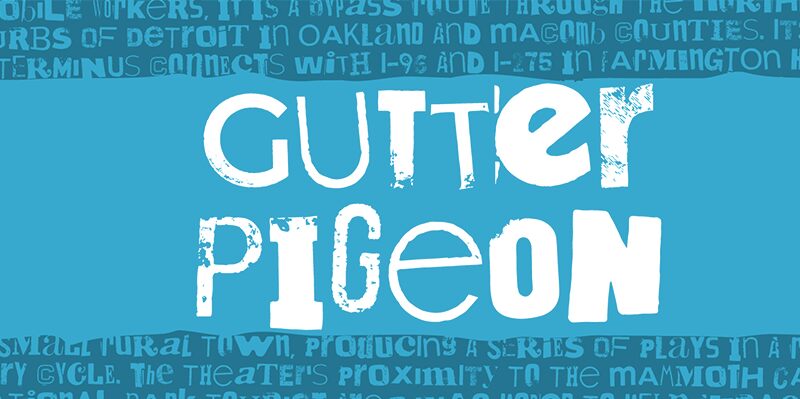
Gutter Pigeon font, crafted by Pizzadude, offers a bold and intriguing eroded style that captures attention with its distinctively distressed texture. This free font stands out for its raw charm, making it an ideal choice for designers seeking to add a gritty, urban edge to their projects.
The robust characters of Gutter Pigeon are perfect for headlines, posters, and t-shirt designs where impact is key. Its unique eroded aesthetic lends itself well to creative contexts that benefit from a touch of grunge or industrial flair. Easily downloadable for versatile use, Gutter Pigeon provides an exciting opportunity to infuse personality into any design venture.